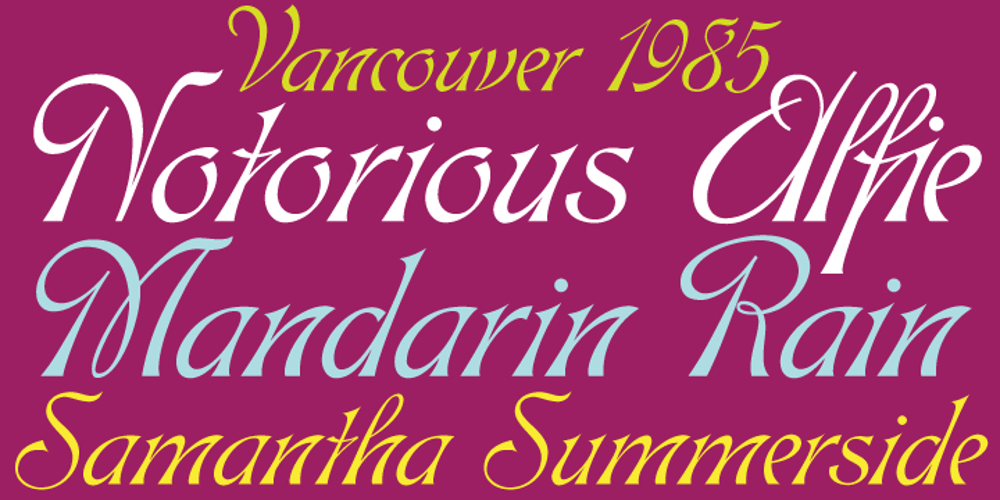
Hortensia
Hortensia font
Hortensia Font Family was designed by Rebecca Alaccari, Patrick Griffin, Emil Gursch and published by Canada Type. Hortensia contains 2 styles and family package options. Hortensia, designed around 1900 by Emil Gursch for his own Berlin foundry, is a typeface most expressive of the post-Victorian aesthetic that was all the rage in both Europe and America during the second half of the 19th century and up until the Great War. It is a reduced aesthetic of sharp points and natural curves that almost want to apologize for their own elegance, but clearly embody the simple excitement about the blossoming of industry and crafts during the period. This deco script trend would get a re-run for about a decade on either side of the second World War — especially in the entertainment and financial industries — before giving way to art nouveau and big brush faces. Hortensia was Gursch’s most popular typeface, used extensively and prominently in many beautiful type catalogs, and a commonly seen design element in Germany for quite a while after its release. This digital version brings plenty of fixes and additions to the original metal Hortensia design, including many alternates sprinkled throughout the character set, and support for a wide range of Latin-based languages (including Central European, Baltic, Turkish and Welsh).